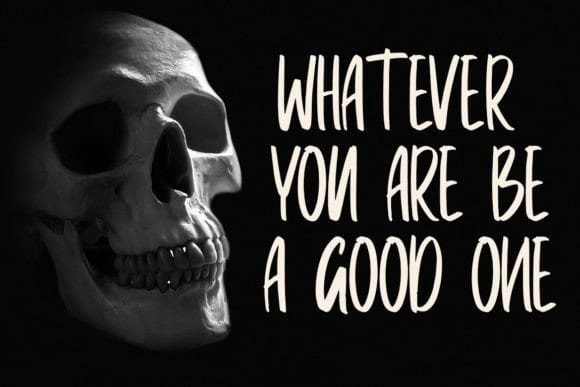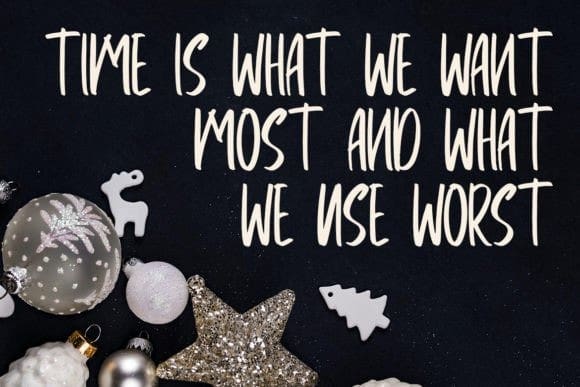
Poraly Font
Poraly Font is a cool and unique handwritten font. It looks beautiful on a variety of designs requiring a personalized style.
Classification: Brush Fonts, Handwritten Fonts